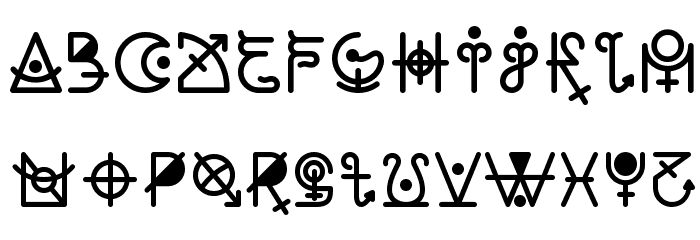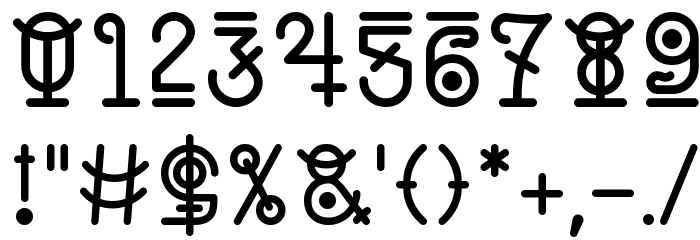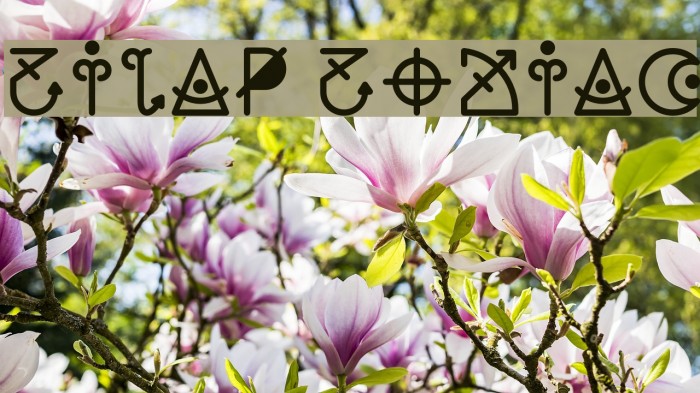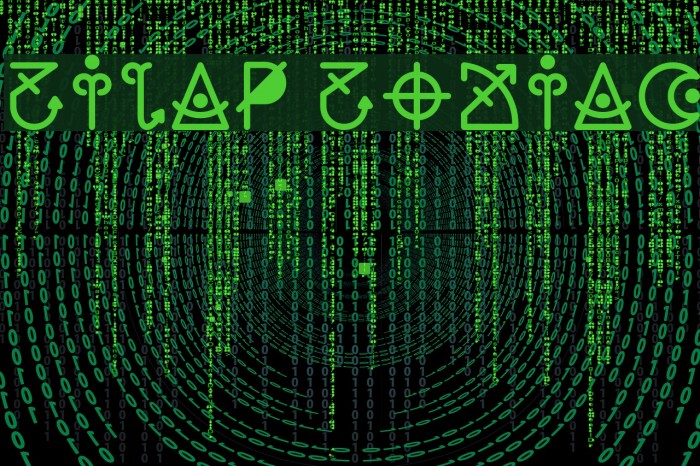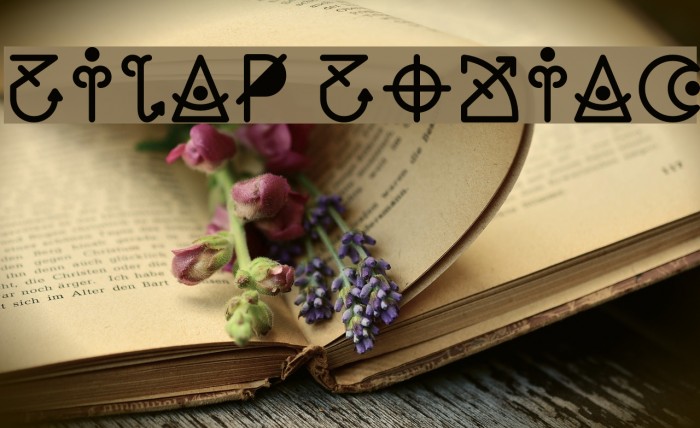
Zilap Zodiac Font
This font features a unique and decorative style, incorporating elements reminiscent of zodiac symbols and mystical iconography. Each character is crafted with intricate details, blending geometric shapes and curves to create a visually captivating effect. The uppercase letters are bold and striking, while the lowercase letters maintain a consistent design theme. Numbers and special characters follow the same ornate style, making the font suitable for projects that require a touch of the esoteric or celestial. Its distinct appearance makes it ideal for creative and artistic applications.
A decorative font inspired by zodiac and mystical symbols, featuring intricate and bold designs.
- Proposed Projects: Ideal for astrology-themed designs, mystical event invitations, tarot card designs, and artistic posters.
- Use Case: Logos, Posters, Artistic Designs